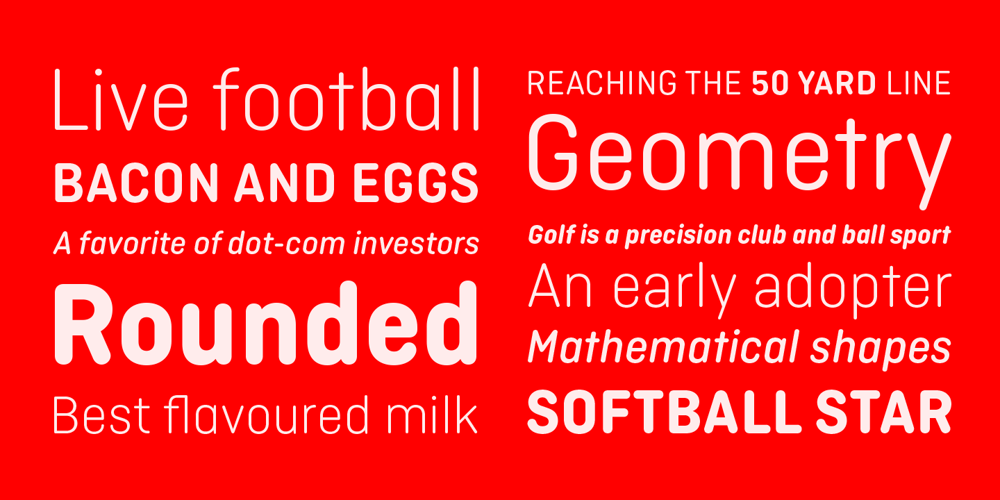
Ciutadella Rounded Font Family was designed by Eduardo Manso and published by Emtype Foundry. Ciutadella Rounded contains 10 styles and family package options. Ciutadella Rounded is not only a font with soft corners, it has a real rounded terminal across all the weights. It was a challenge to achieve a rounded effect in close counters characters, especially in the heaviest weights where there is less space available to accommodate the round ending. Suitable to be used across a wide range of applications, from identity systems to publications. It is available in Open Type format and includes Alternate Characters (‘a’, ‘t’ and ‘&’), Ligatures, Tabular Figures, Fractions, Numerators, Denominators, Superiors and Inferiors. It supports Central and Eastern European languages. The type family consists of 10 styles, 5 weights (Light, Regular, Medium, SemiBold and Bold) plus italics. For more details see the PDF.See also Ciutadella and Ciutadella Slab.